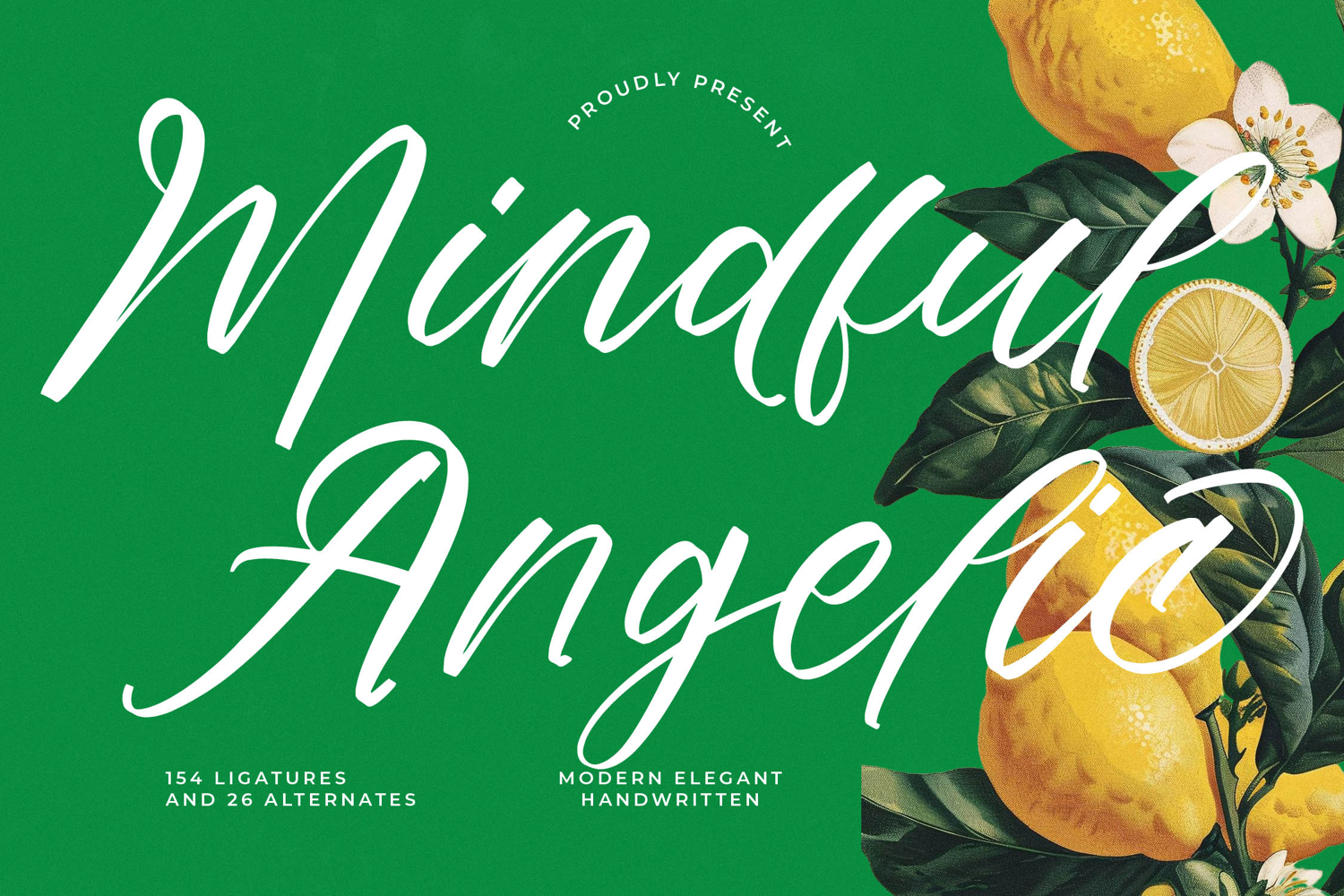
Mindful Angelic - Modern Elegant Handwritten
Mindful Angelic - Modern Elegant Handwritten is the definitive script for conveying authentic luxury and bespoke craftsmanship. Characterized by its dramatic high-contrast strokes and expansive, flowing baselines, this typeface brings an unparalleled sense of human touch and modern grace to any project. It masterfully balances the organic feel of genuine handwriting with the polished precision demanded by high-end branding and creative editorial work.